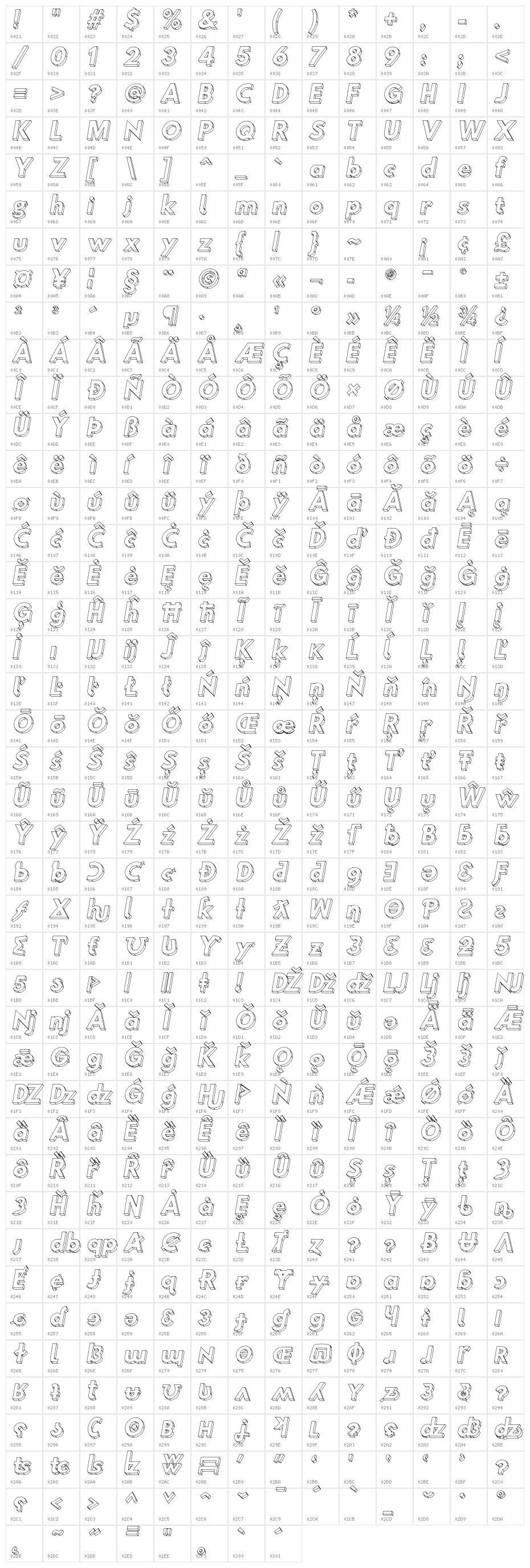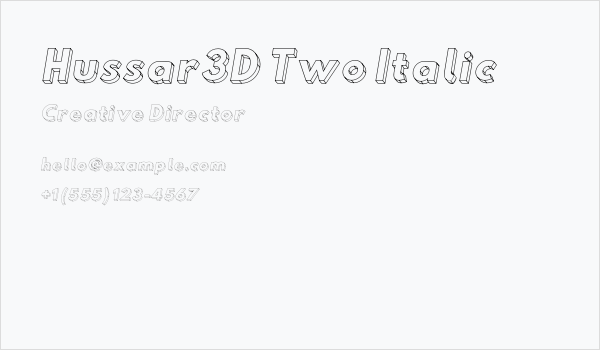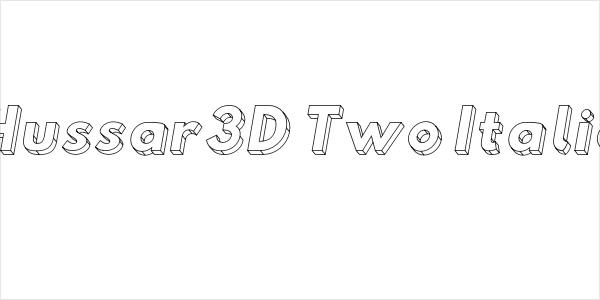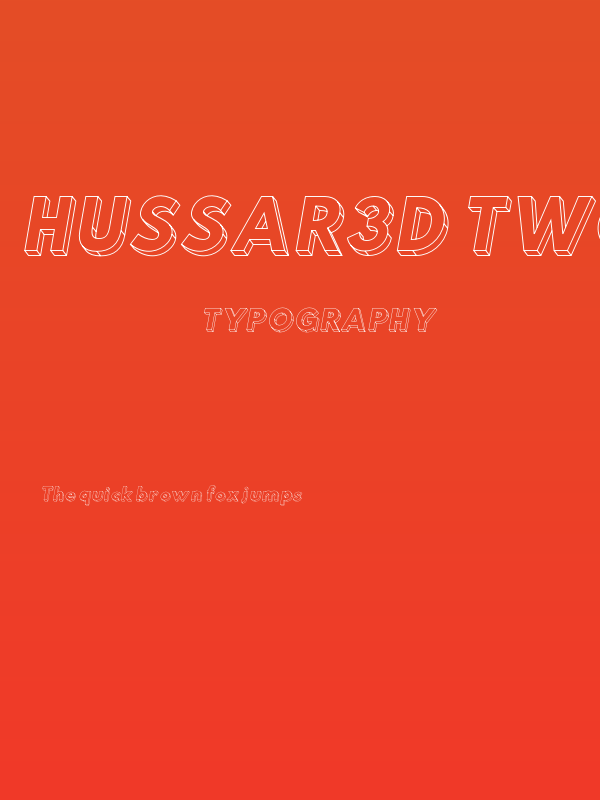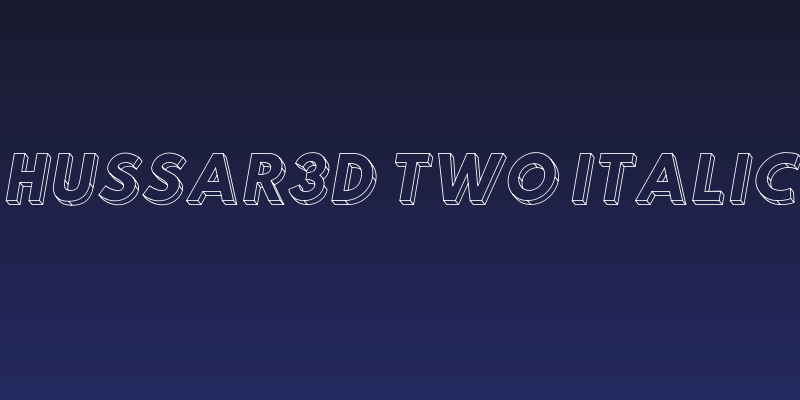
Hussar3D Two Italic Font
Hussar3D Two Italic Description
This font features a bold, three-dimensional design with italicized characters, creating a dynamic and eye-catching appearance. The letters are outlined, giving them a hollow look that enhances the 3D effect. The uppercase and lowercase letters maintain consistent styling, with smooth curves and sharp angles that contribute to a modern aesthetic. Numbers and special characters are equally stylized, ensuring uniformity across all glyphs. The font's unique structure makes it ideal for projects that require a strong visual impact.
| Proposed Projects | Ideal for posters, headlines, logos, and any design needing a bold, modern touch. |